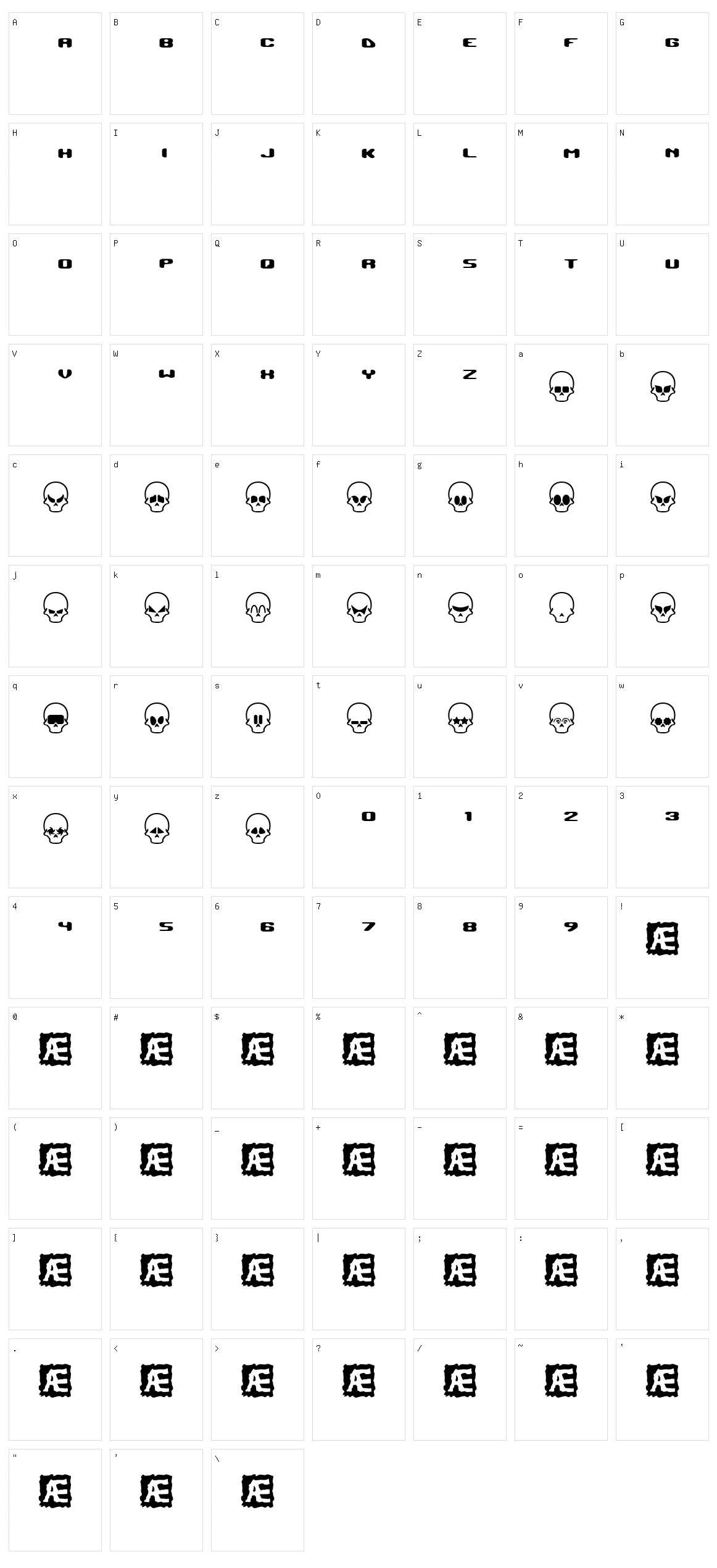
Skull Capz Created by Brian Kent
Here's how to use the Font:
1] Type in a Capital Letter <or a #> for a letter <or #> that goes on the Skull.
2] Next, type in a lower case letter for a Skull.
3] Continue doing this (Capital letter <or #> then a lower case letter) until you
finish your text.
For example, try typing in: SaKfUjLmLr CuAvPxZz
--Take a look at the infopic.gif to see what letters correspond with each Skull.
--There are 26 Skulls to choose from. I left the letter 'o' Skull blank so anyone can
draw in their own eyes on the Skull.
--Typing in just lower case letters will make just the Skulls.
--Typing in just Capital Letters or #'s will place all of the characters on top of
each other, making in look like a Big Dot.